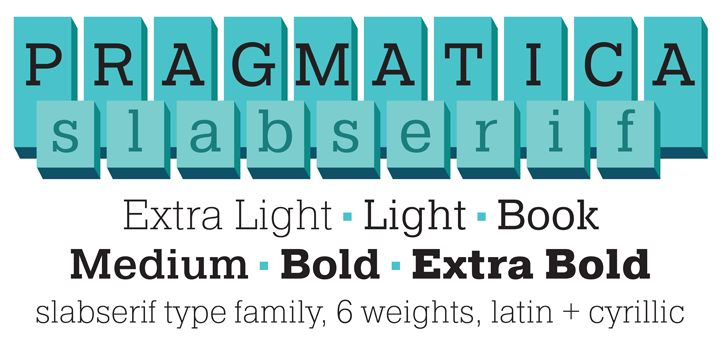
If you want a font that combines boldness with classic slab serif charm, Pragmatica Slab Serif Font Free Download is the perfect fit. Its strong, blocky serifs and clean lines deliver a commanding presence, making it ideal for headlines, posters, branding, and editorial designs that demand attention.
Whether you’re designing impactful logos or striking website headers, Pragmatica Slab Serif Font Free Download enhances your work with bold character and professionalism. Its versatile style adapts effortlessly across both digital and print mediums.